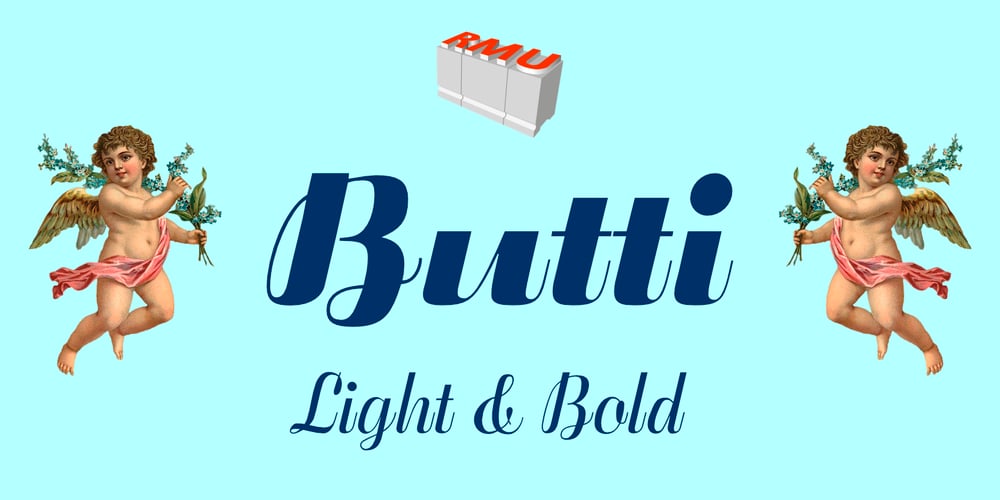
Butti
Butti font
Butti Font Family was designed by Ralph M. Unger and published by RMU. Butti contains 2 styles and family package options. In 1951 Alessandro Butti cut a fontfamily for Nebiolo which he called Fluidum. Both weights, light and bold, were now revived and named Butti.